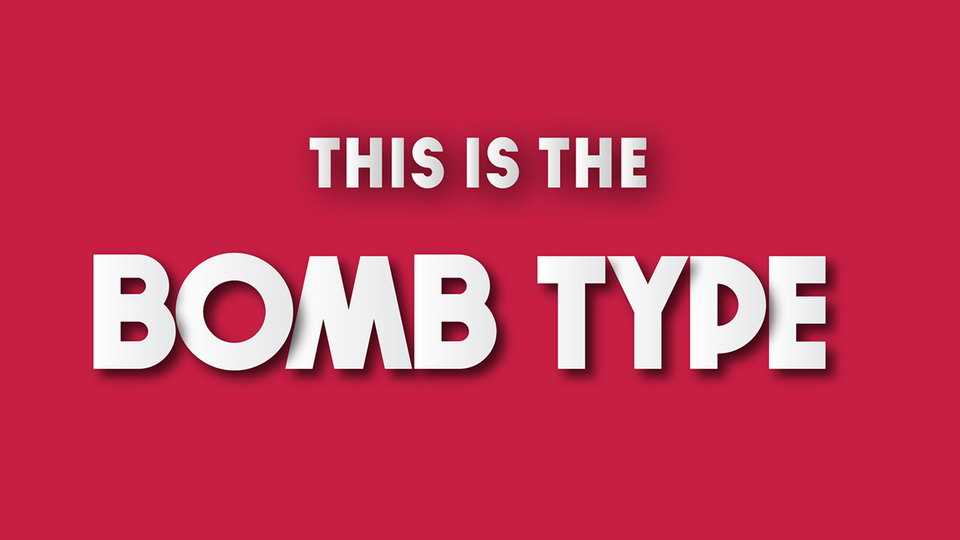
Download Bomb Type font family, a bold geometric display typeface with 3 fonts – Regular, Italic and Expanded shadow look. It works best for an eye-catching logotypes and headlines, also great for posters, signage and other display purposes.
Designer: Iordanis Passas